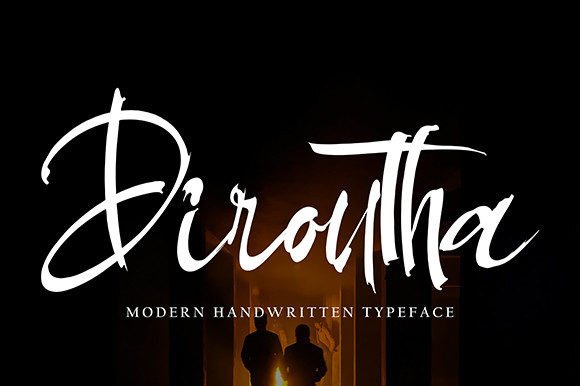
Step into a world of elegance and charm with Diroutha, a captivating script font family designed to elevate your creations with a touch of handwritten beauty. Crafted by the esteemed Pineungtype and Missinklab, Diroutha is not just a font; it's an artistic expression that brings life to your words.
With its delicate strokes and graceful curves, Diroutha dances across the page, leaving a trail of timeless sophistication. Its enchanting characters possess an organic flow that mimics the natural beauty of handwritten notes, adding a personal touch to your designs.
Picture the allure of a wedding invitation adorned with Diroutha's delicate flourishes, inviting guests to a celebration of love. Its flowing lines evoke a sense of romance and intimacy, setting the tone for a truly unforgettable occasion.
Unleash your creativity and let Diroutha captivate your audience in logos, blog headers, posters, and branding materials. Its versatility knows no bounds, making it the perfect choice for projects that demand a touch of elegance and charm.
Compose letters and invitations with Diroutha, and let your words flow with effortless grace. Its refined style adds a touch of sophistication to personal correspondence, making every message a cherished keepsake.
Discover the enchanting world of Diroutha, where beauty and functionality intertwine to create a font family that will redefine your creative endeavors. Experience the magic of Diroutha today and elevate your designs to new heights.